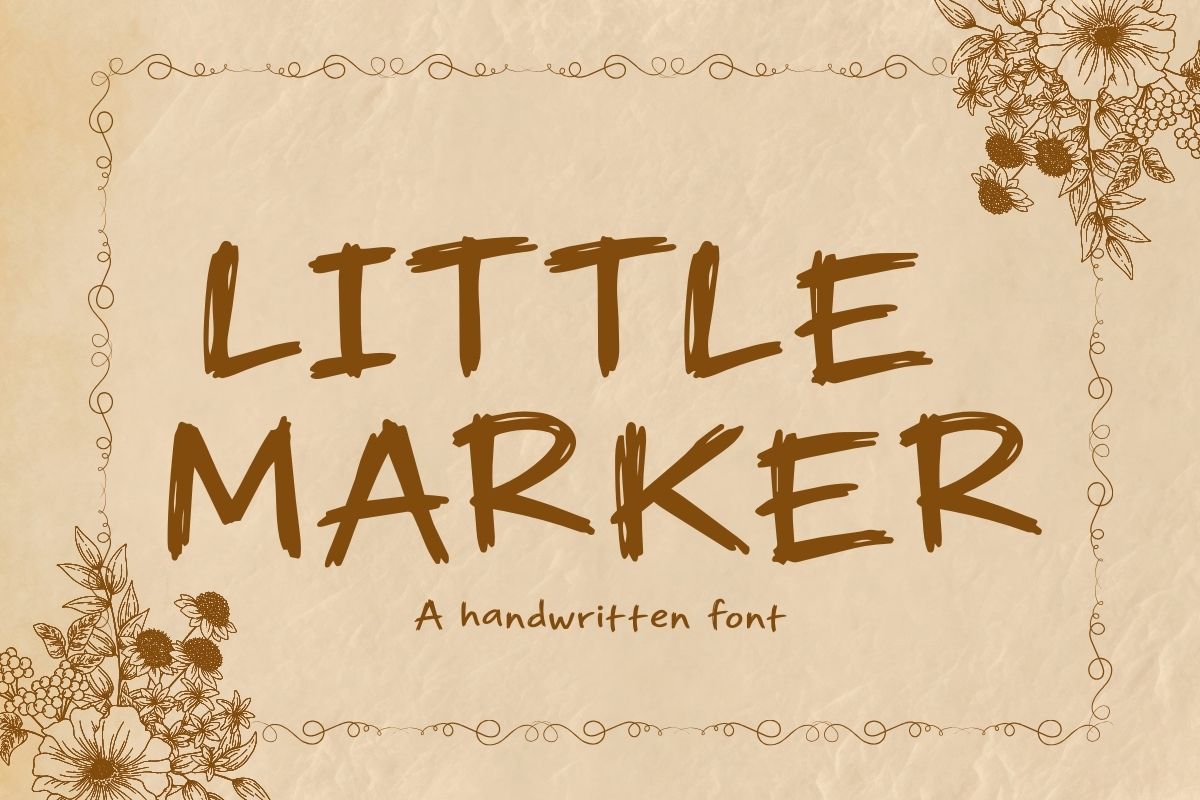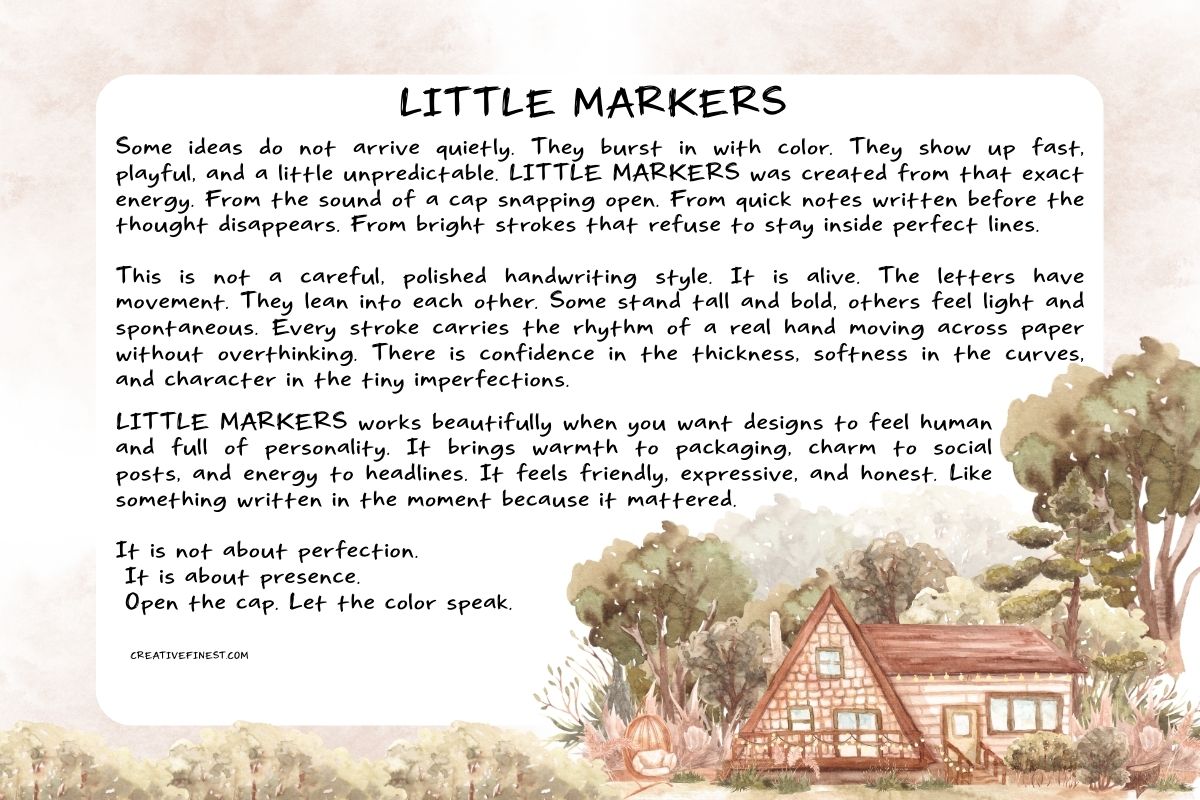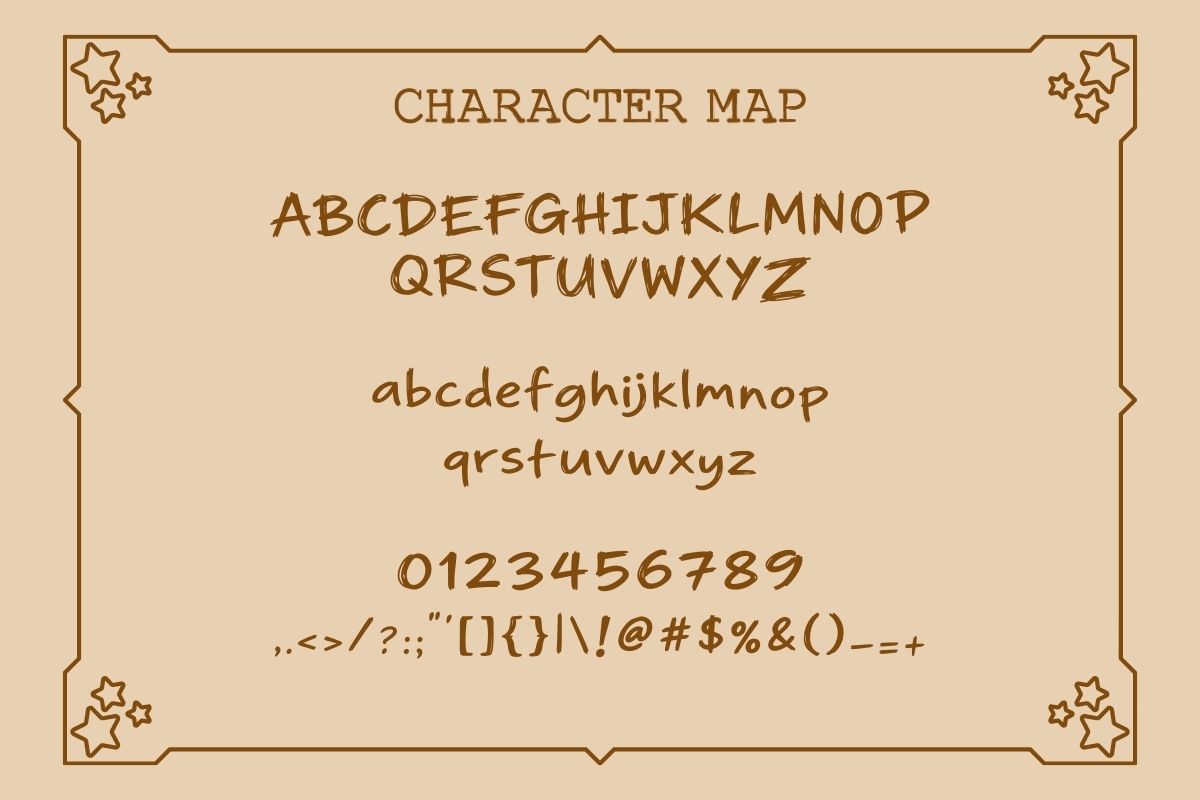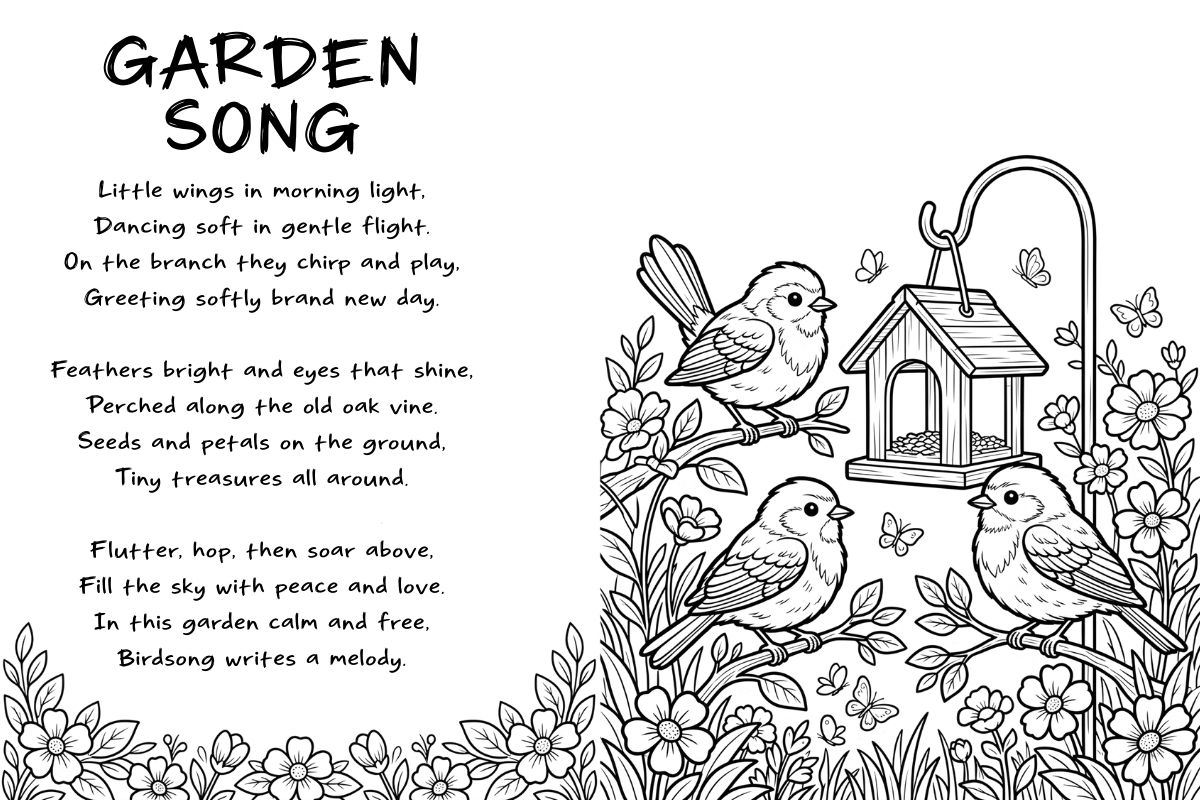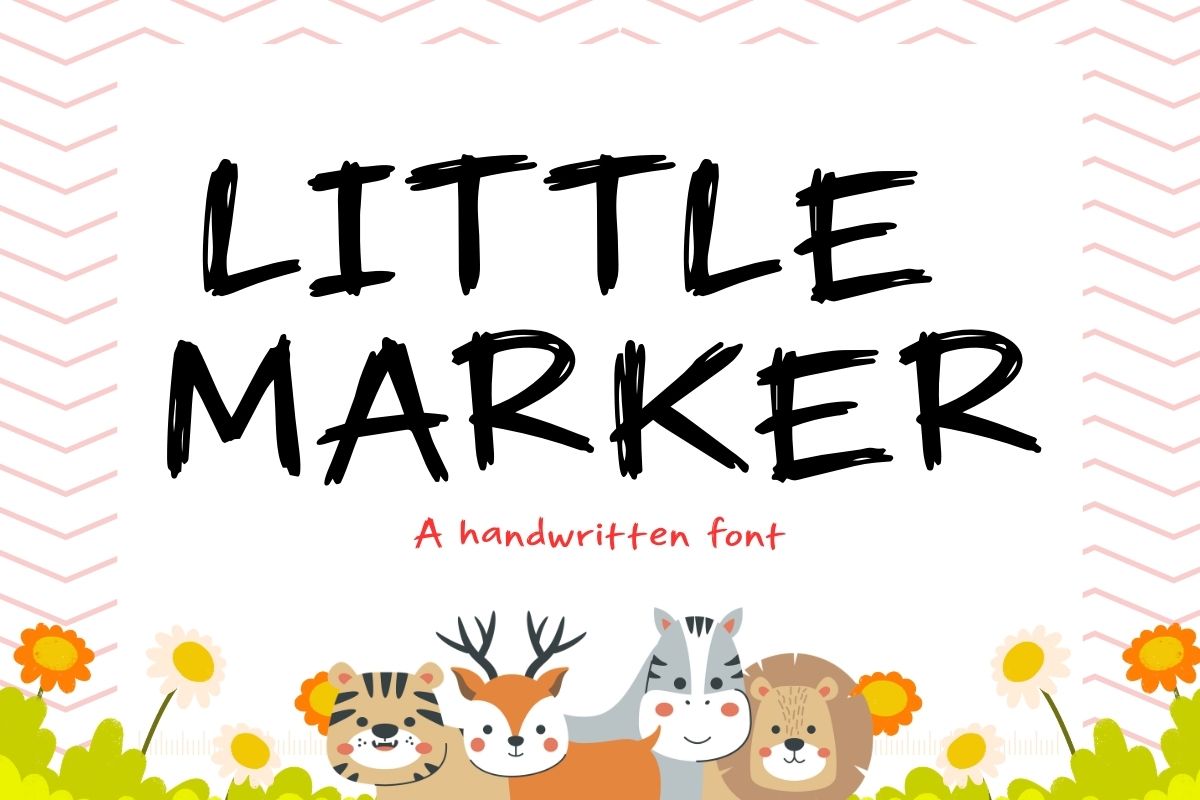
Little Marker Handmade Font
Introducing Little Marker Handmade Font, a fun and playful handwritten font that feels like it was made with a real marker in a happy moment. The letters look bold, lively, and full of energy, just like quick notes written with love and excitement. It is not too perfect, and that is what makes it special. Every letter has its own little charm, making your words feel warm and friendly.
Little Marker includes uppercase, lowercase, numbers, and symbols, so you can use it for many creative ideas. It is great for school projects, kids books, posters, invitations, social media posts, logos, packaging, and fun quotes. This font makes your designs feel bright, natural, and full of personality. If you want your words to look real, joyful, and full of heart, Little Marker is a lovely choice.